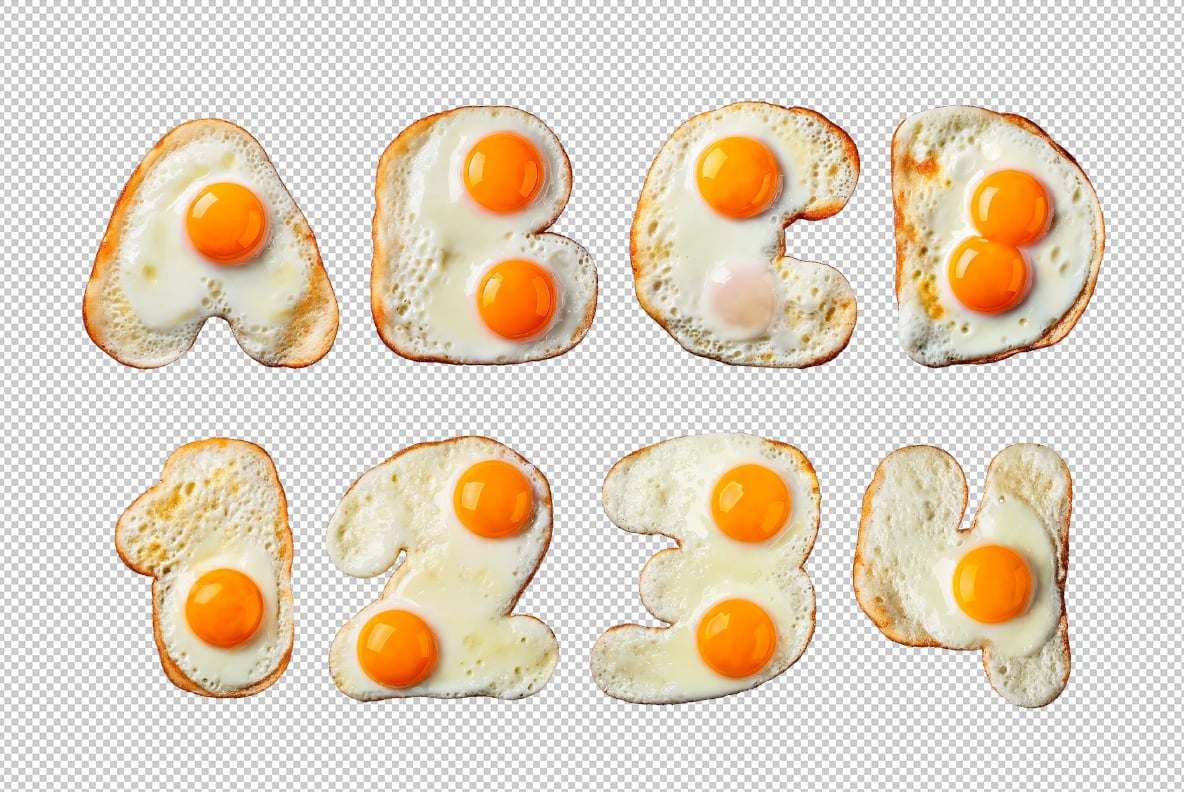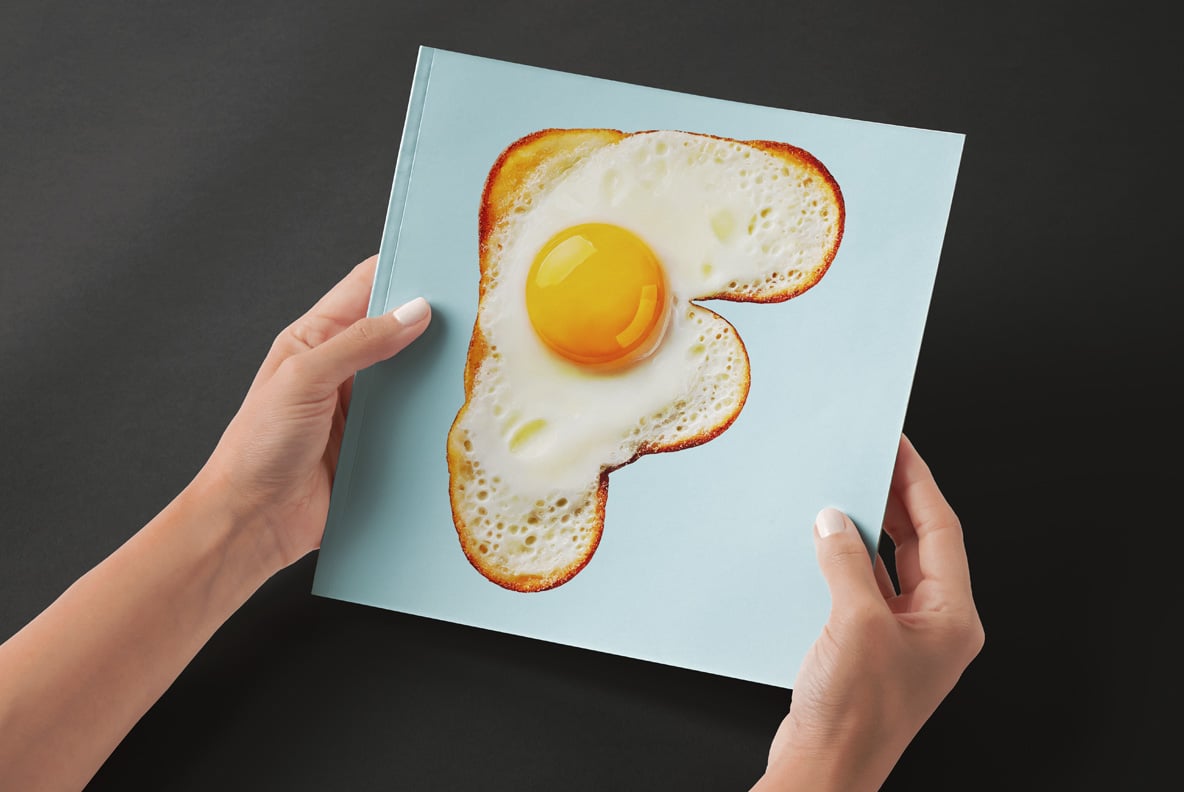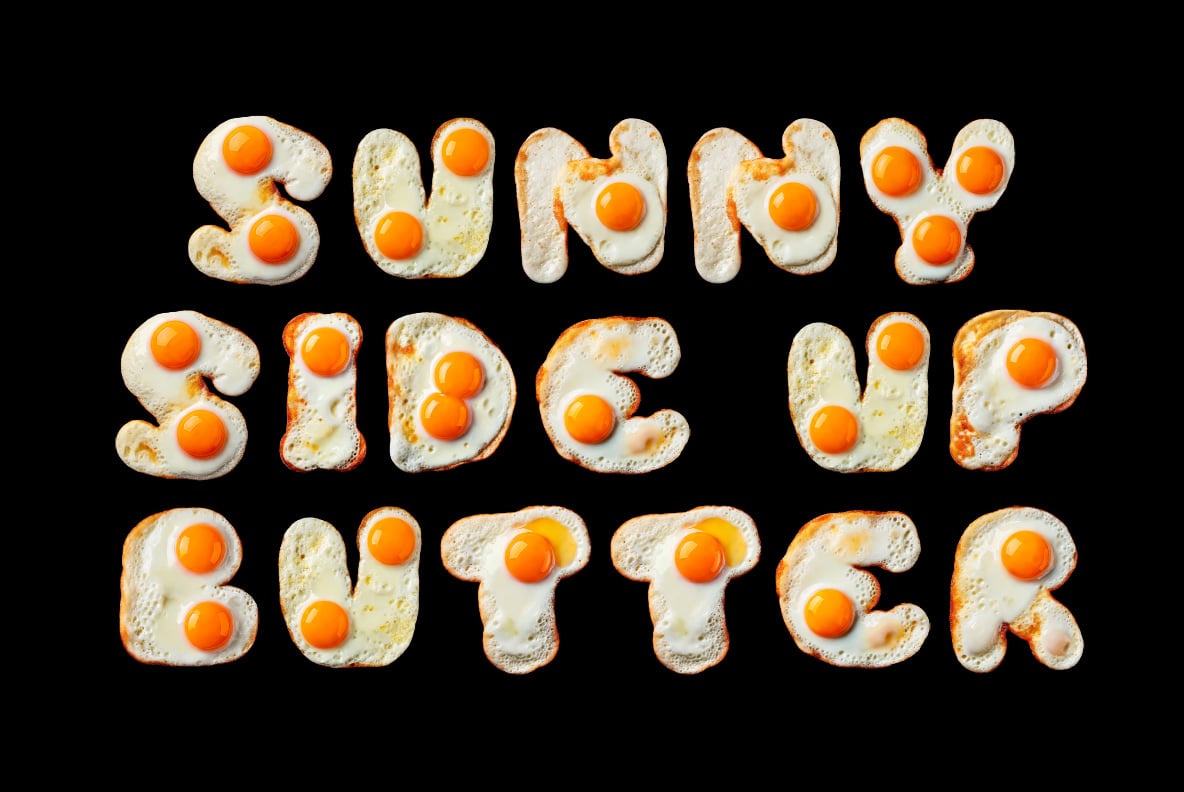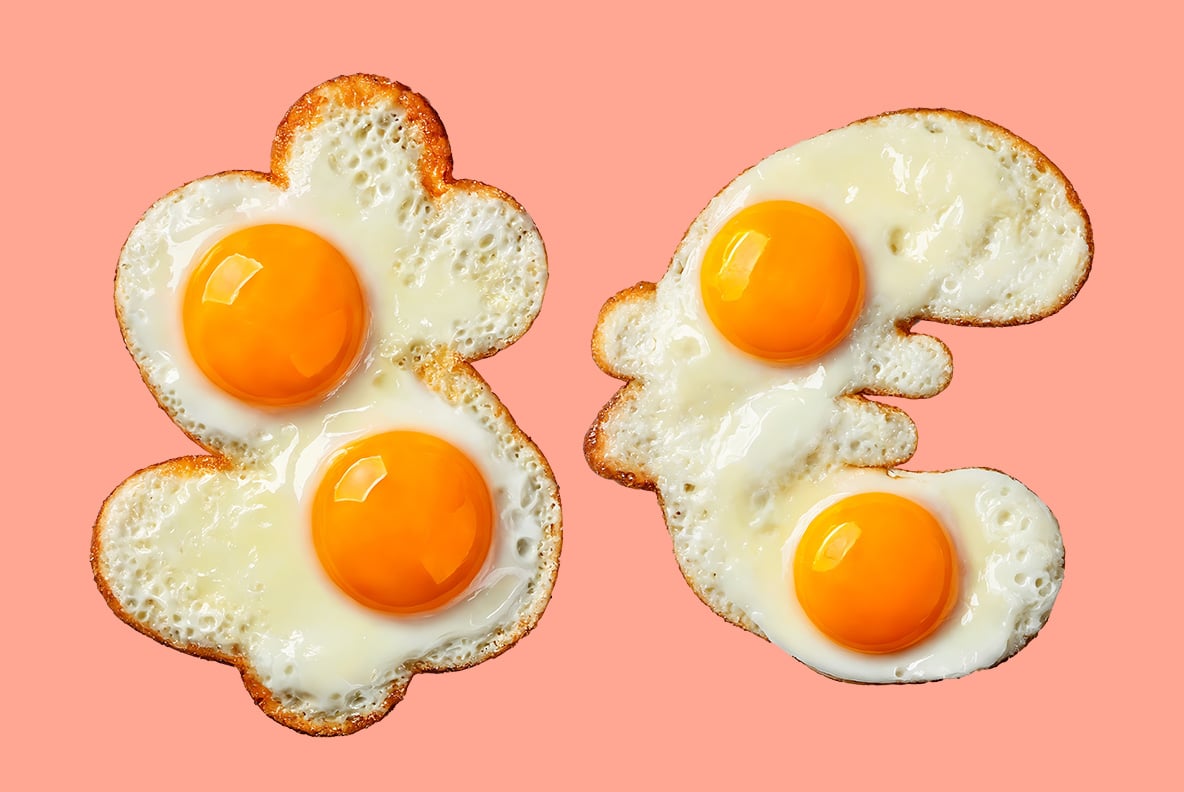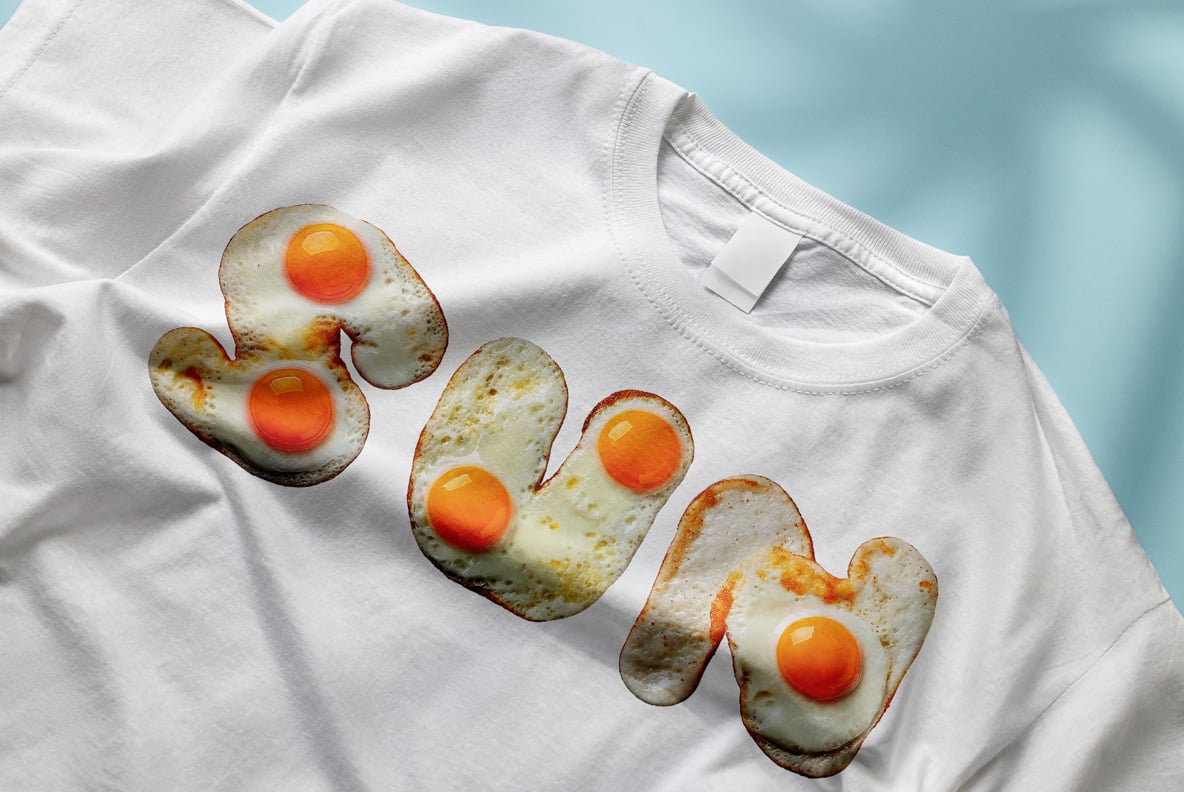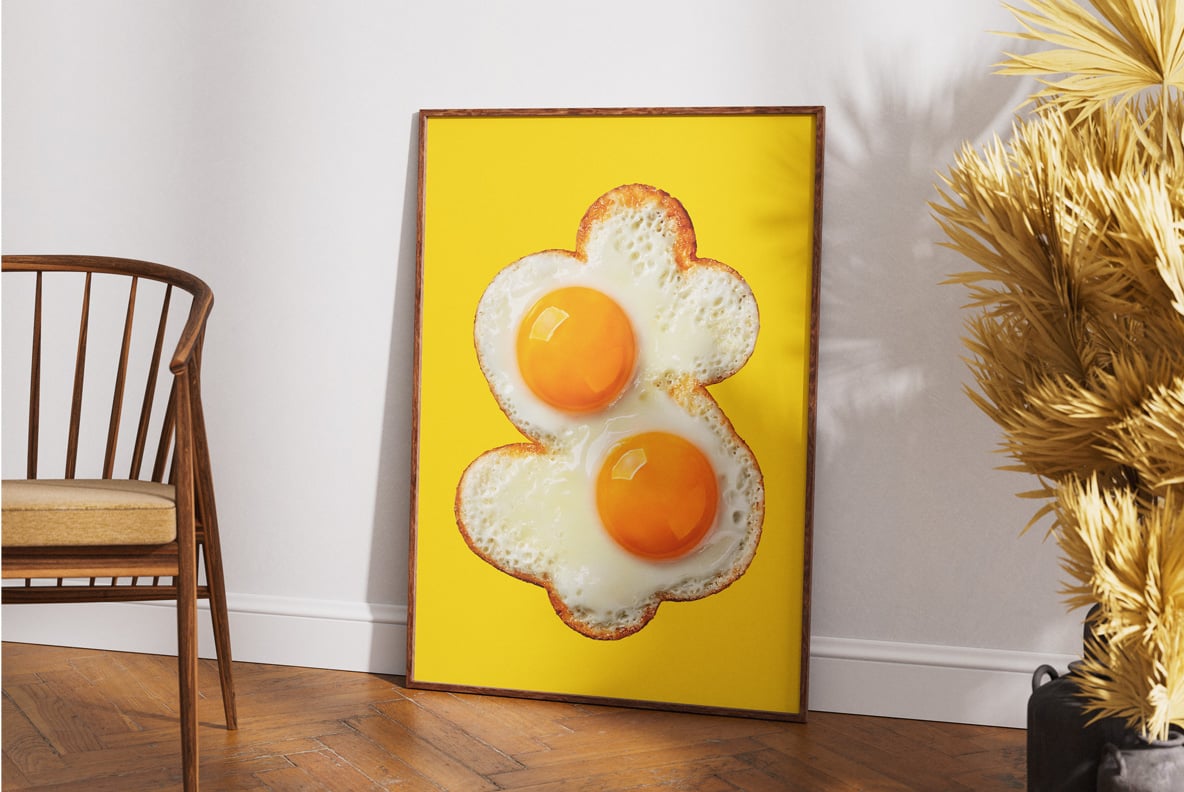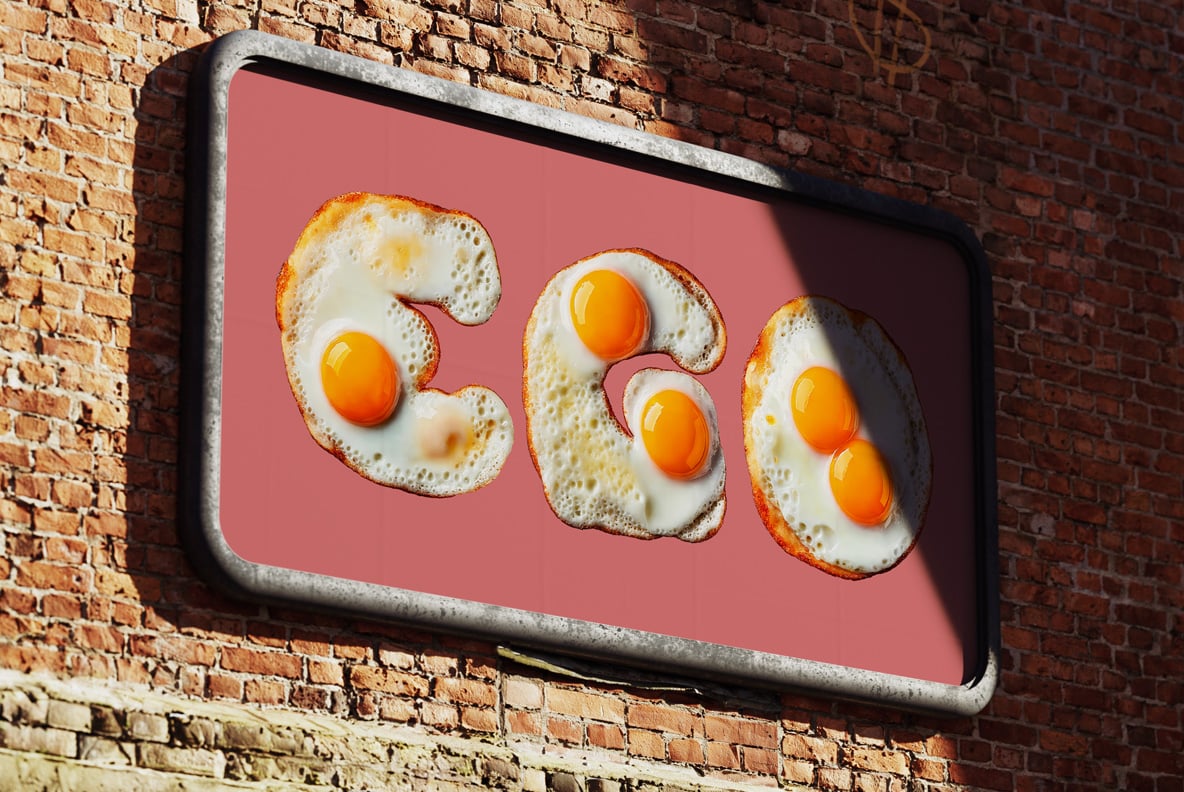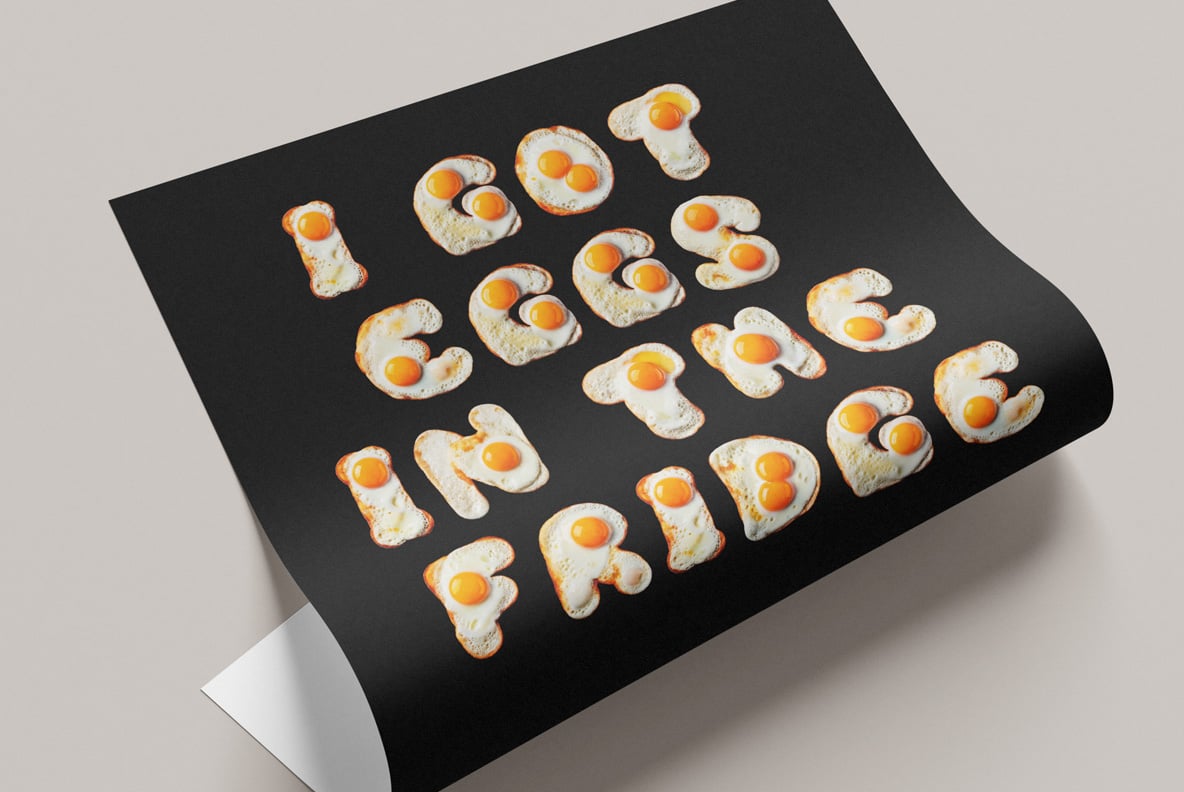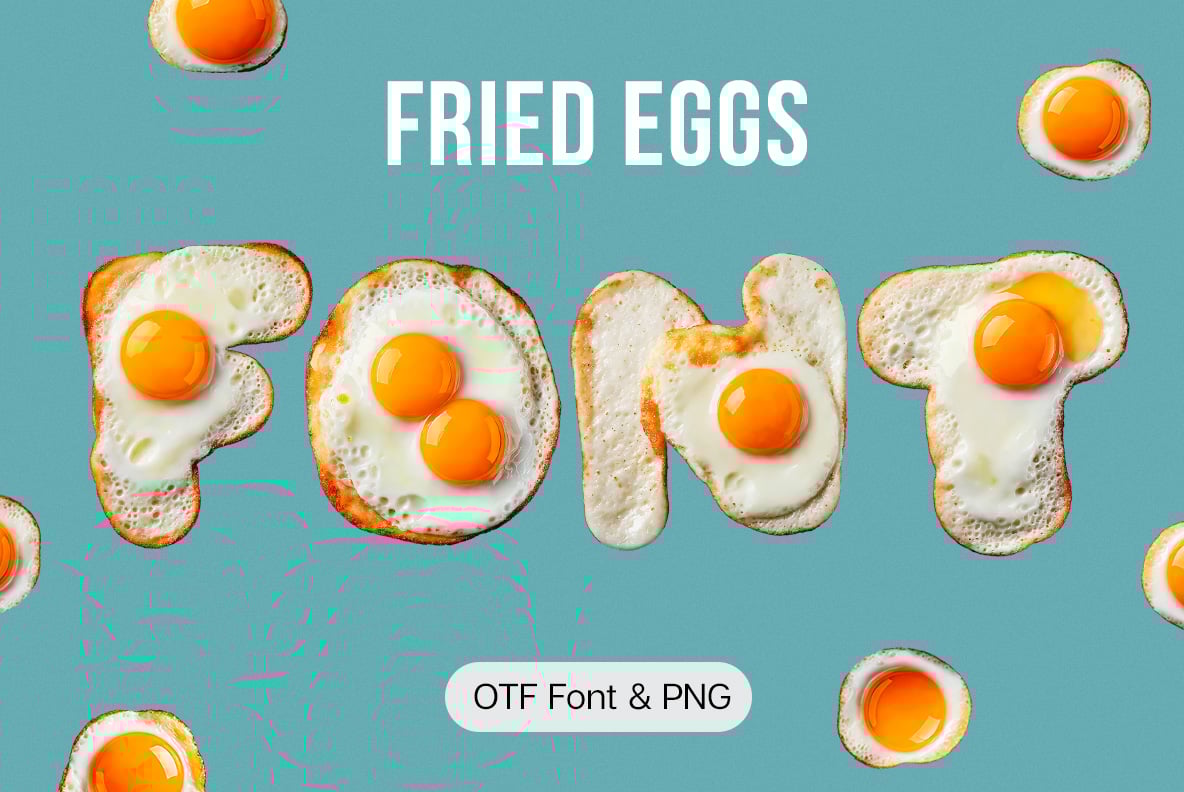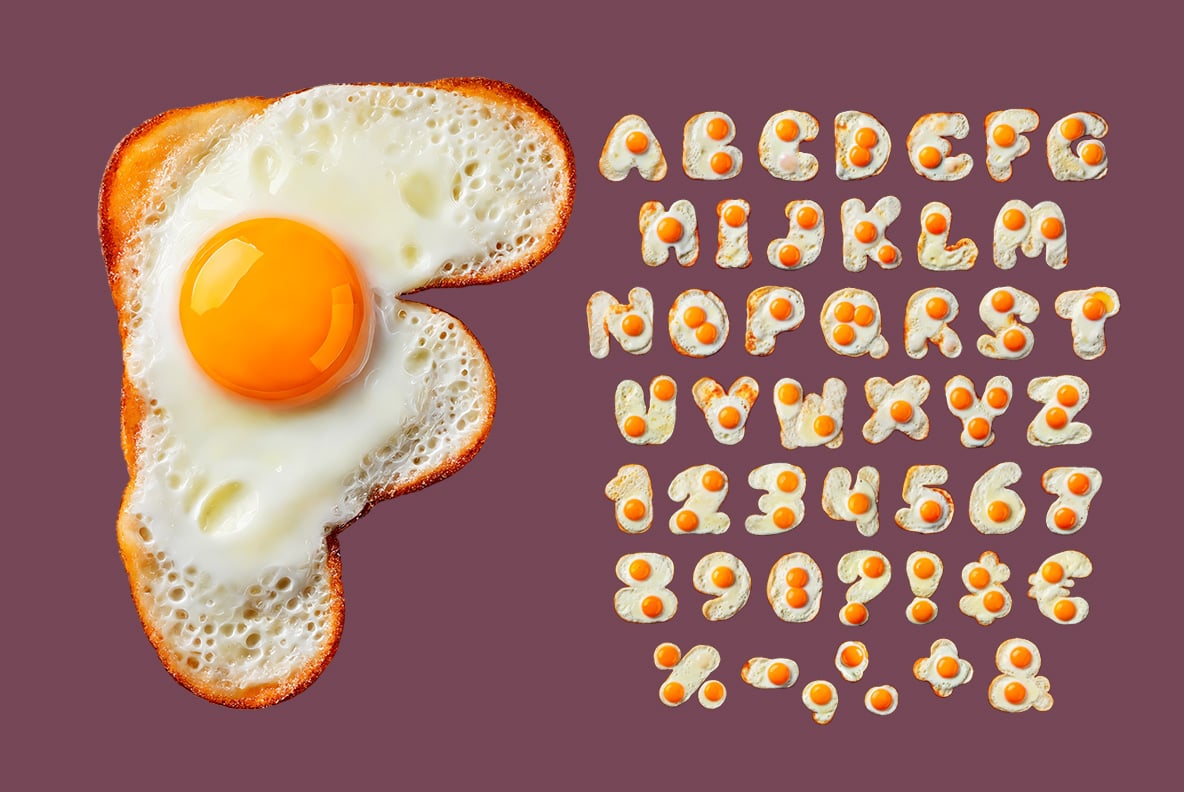
Fried Eggs Font
Fried Eggs Font brings a playful twist to typography, inspired by sizzling breakfast vibes. Imagine letters shaped like perfectly fried eggs, blending morning warmth with creative flair. Ideal for food-themed projects, quirky designs, or adding a dash of fun to your art, this font serves up sunny-side-up style in every word.
A high definition OpenType Font. Contains uppercase characters, numerals and basic punctuation. (Draw height roughly 800 pixels). All letters and glyphs that comprises this font you can see on the preview.